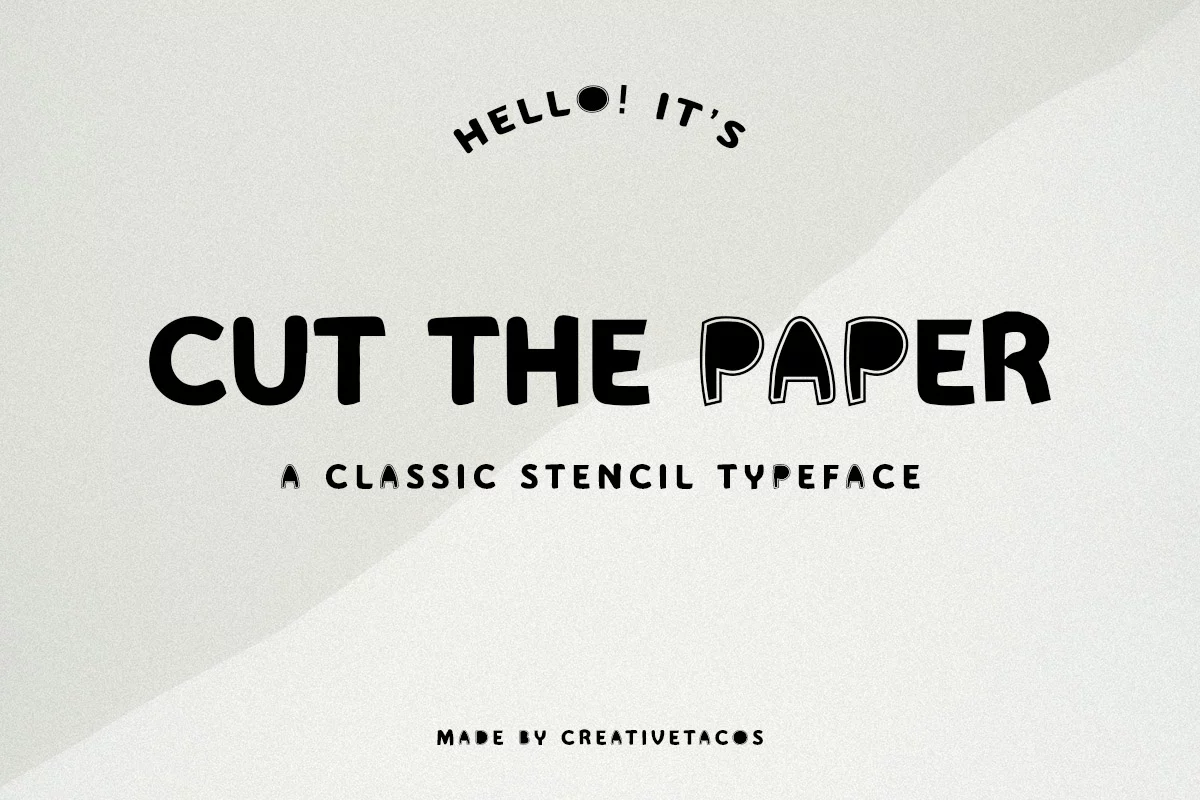
Cut The Paper Stencil Font
Cut The Paper Stencil Font is a organic, rough and minimal font with careful attention to detail made to you for your upcoming projects.
It contains uppercase and number only. Cut The Paper font looks very awesome for wedding, feminine branding, social media, card, logos, web, branding, stationery, advertisements, product packaging, label, photography, watermark, special events, handmade notes, or just adding a professional touch to any projects!